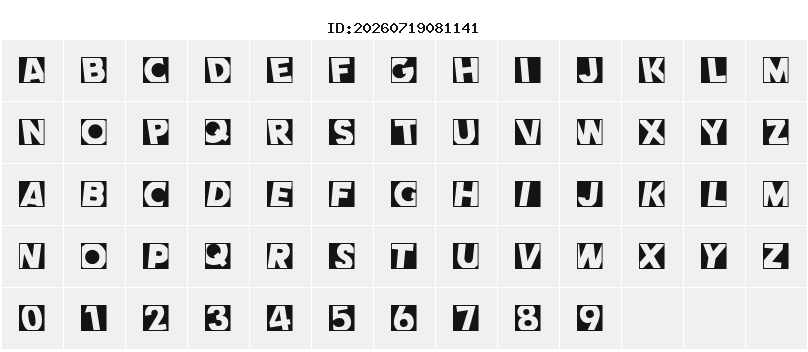
CometNegative Preview
• Font Name: CometNegative
• Full Font Name: CometNegative
About CometNegative.ttf
CometNegative.ttf is a modern, elegant sans-serif font designed for ultimate readability and visual harmony. Perfect for branding, headlines, web design, and print materials.